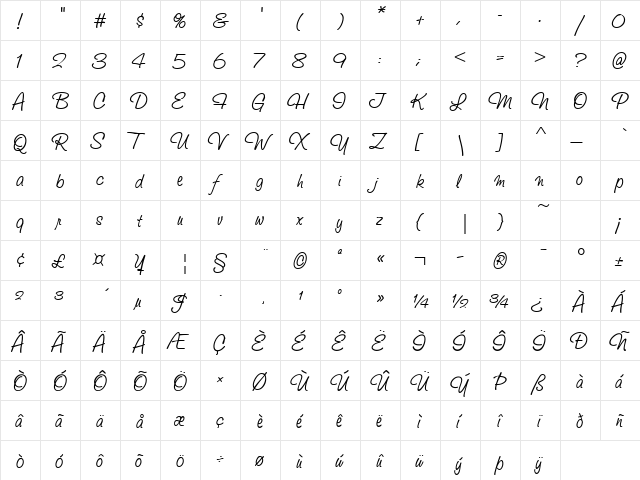
Studio Script ICG Regular Font Preview
Studio Script ICG Regular
Design Context for Studio Script ICG Typeface
Studio Script ICG flows with the natural rhythm of handwritten lettering, making it ideal for designs that call for warmth and personal expression.
Font Pairing: Combine Studio Script ICG with a simple geometric sans for maximum contrast — the tension between flowing curves and clean structure is a classic typographic pairing.
Pro Tip: Use Studio Script ICG for short runs of text — names, titles, or taglines. Extended body copy in script faces tires the eye quickly.